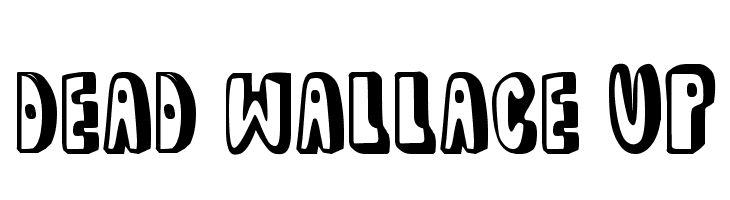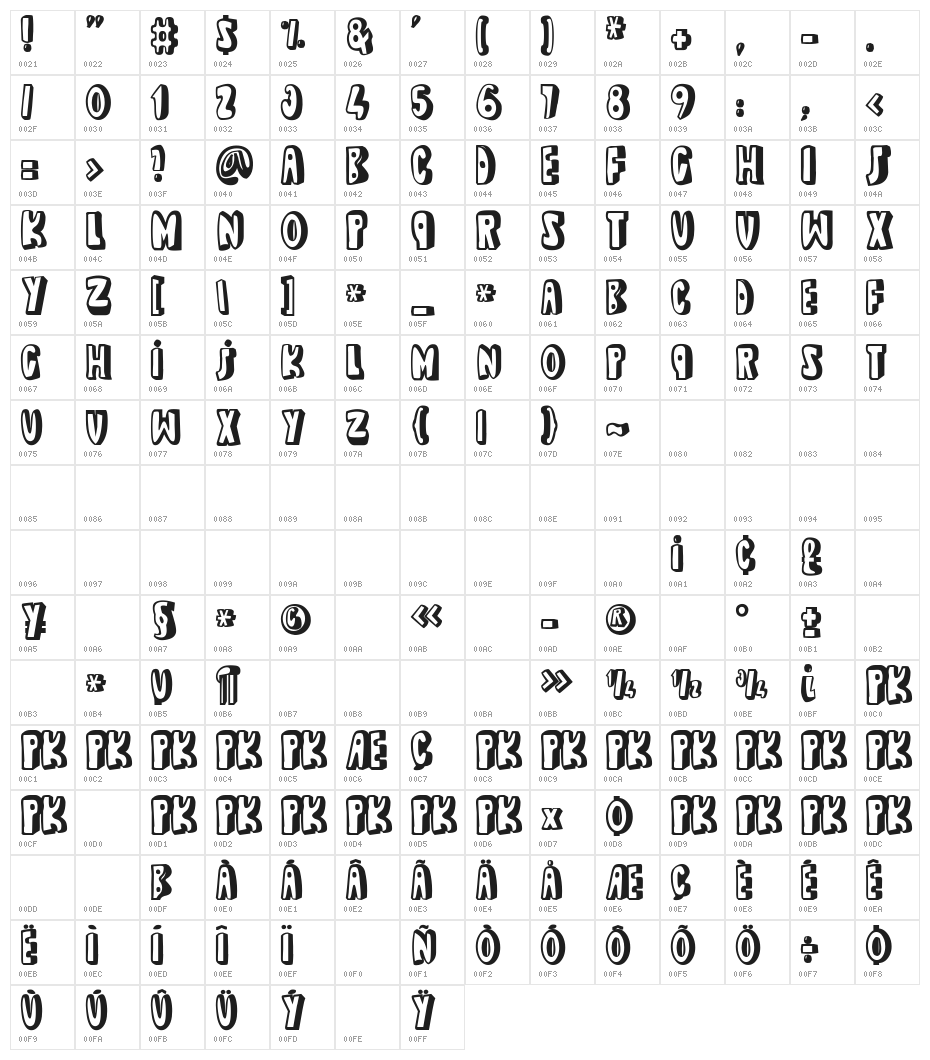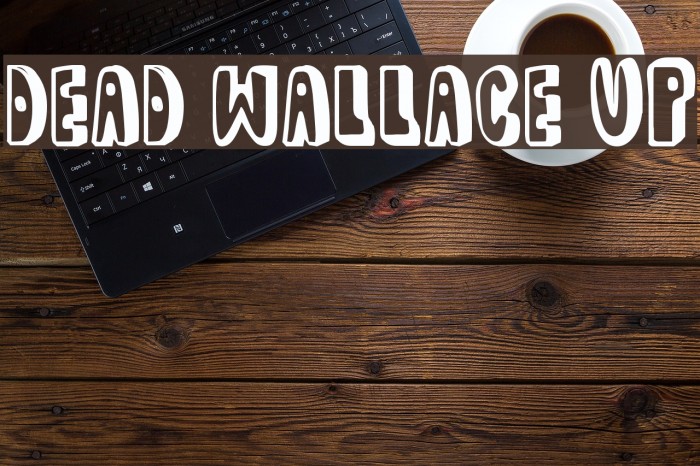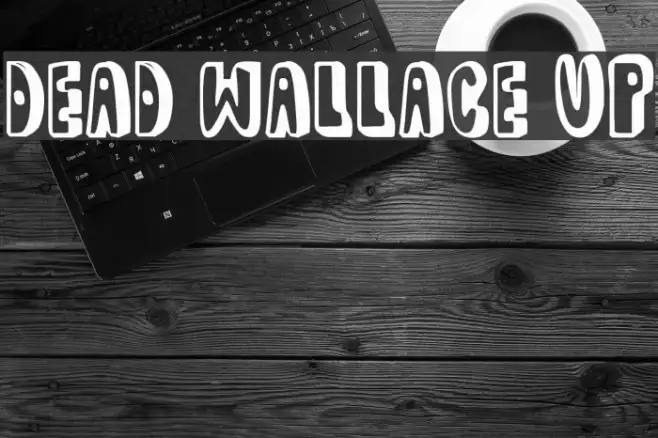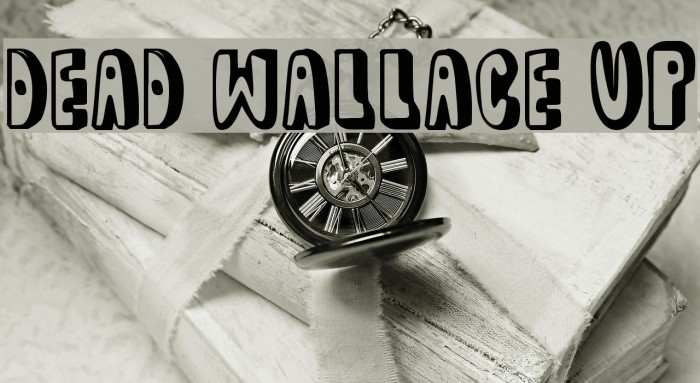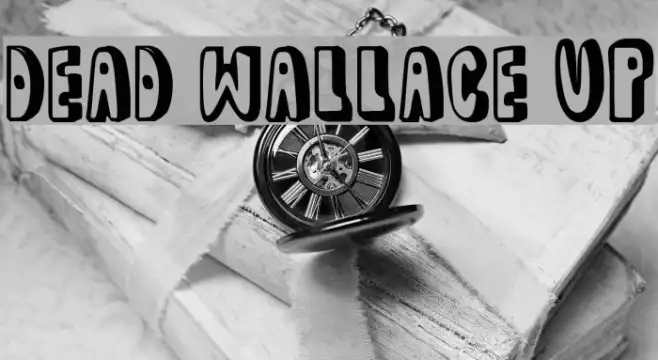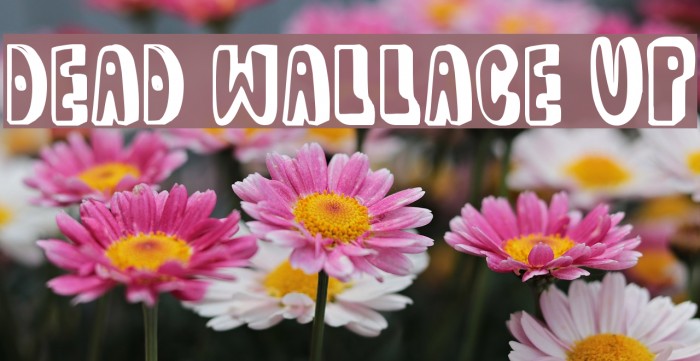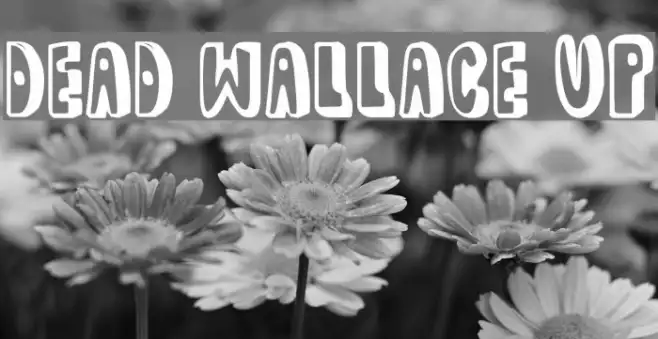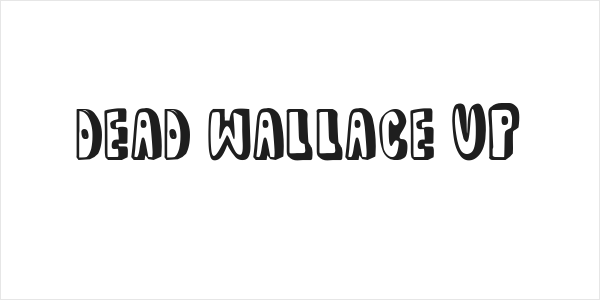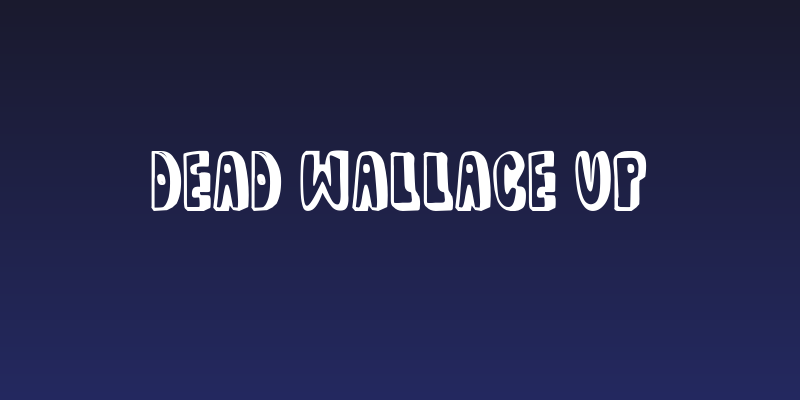
dead wallace UP Font
dead wallace UP Description
This font features bold, playful characters with a distinct, cartoonish style. The letters are thick and rounded, with a slight shadow effect that gives them a three-dimensional appearance. The uppercase and lowercase letters maintain a consistent style, with exaggerated curves and a whimsical feel. The numbers and special characters follow the same design principles, ensuring a cohesive look across all elements. This font's unique style makes it stand out, perfect for projects that require a fun and engaging visual impact.
| Overall Style | Playful, Cartoonish, Fun |
| Proposed Projects | Ideal for children's books, comic strips, playful branding, and eye-catching posters. |